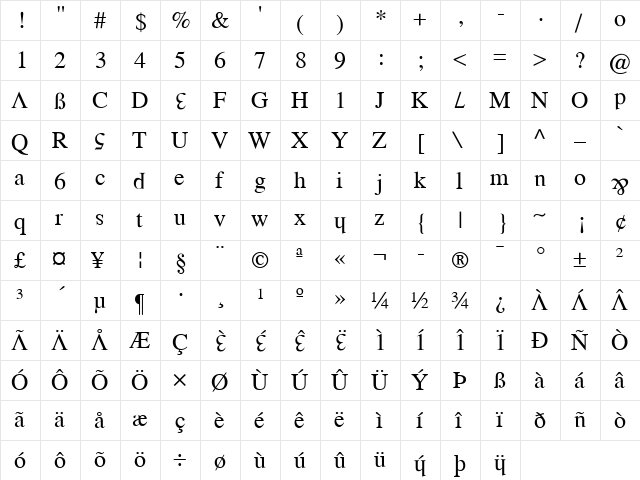
Wrongfont Medium
| Foundry | Adobe Systems Incorporated |
| Year | 1989 |
Design Context for Wrongfont Typeface
Wrongfont is a composed and adaptable typeface that performs quietly and consistently across a wide range of design contexts.